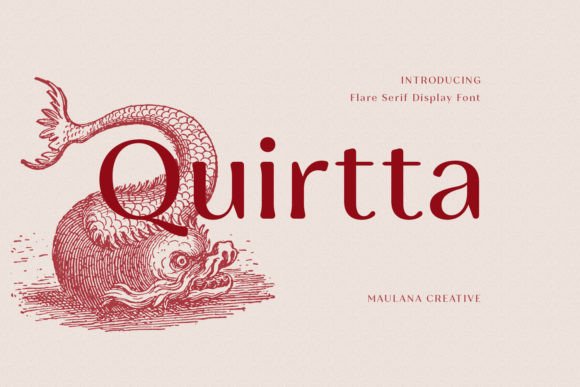
Feast your eyes upon Quirtta Font, a captivating serif typeface that will ignite your designs with its enchanting allure. Crafted by the visionary artisans at Maulana Creative, Quirtta embodies the essence of vintage charm and modern sophistication.
Journey into a realm of evocative typography, where Quirtta's distinctive letterforms dance across the page like graceful brushstrokes. Its elegantly flared serifs evoke a sense of timeless elegance, while its meticulously crafted curves whisper the secrets of a bygone era.
But Quirtta is not merely a relic of the past. Its versatility knows no bounds, making it a font of endless possibilities. Unleash your imagination and embrace the power of storytelling, whether you're crafting alluring invitations, captivating social media posts, or forging unforgettable brand identities.
Among Quirtta's many remarkable qualities, its mastery of the letter "E" stands as a testament to its exceptional artistry. Each "E" is a work of art, meticulously shaped to convey a spectrum of emotions, from ethereal elegance to enchanting mystery. With Quirtta Font, your words will transform into breathtaking visual masterpieces.